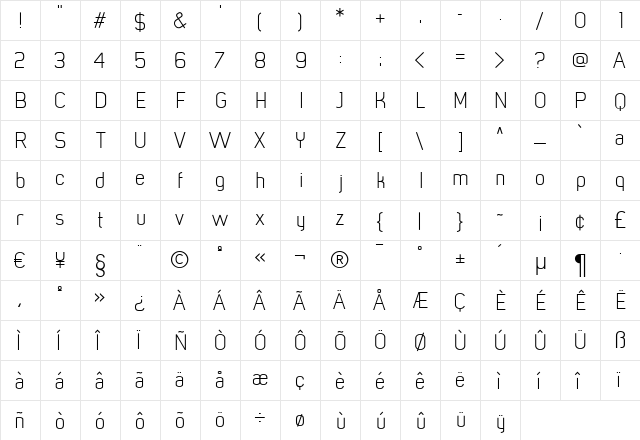
MisterGiacco Regular
Regular · SUDTIPOS. Dise\ ada por Diego giaccone. Todos los derechos reservados. Buenos Aires, Argentina  ·
Foundry SUDTIPOS. Dise\ ada por Diego giaccone. Todos los derechos reservados. Buenos Aires, Argentina
Design Context for MisterGiacco Typeface
MisterGiacco takes a measured approach to typography — its balanced proportions and neutral character make it a reliable workhorse for both digital and print work.